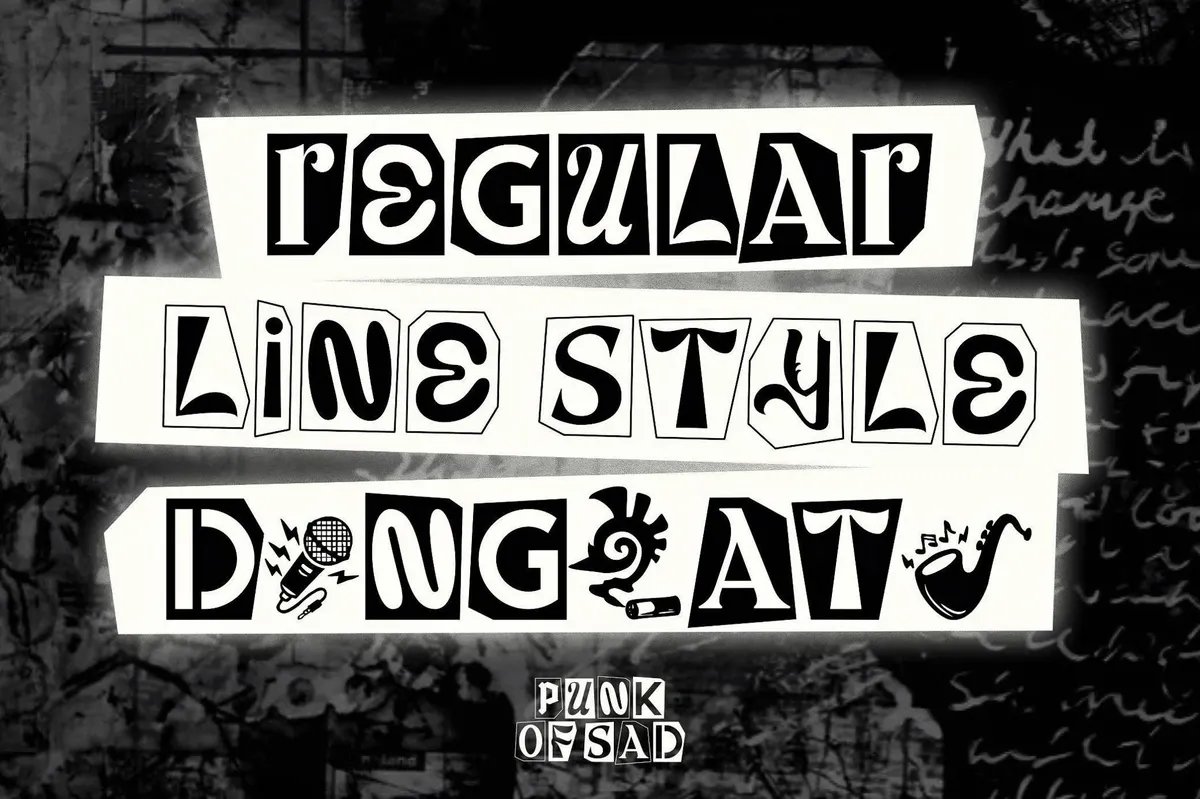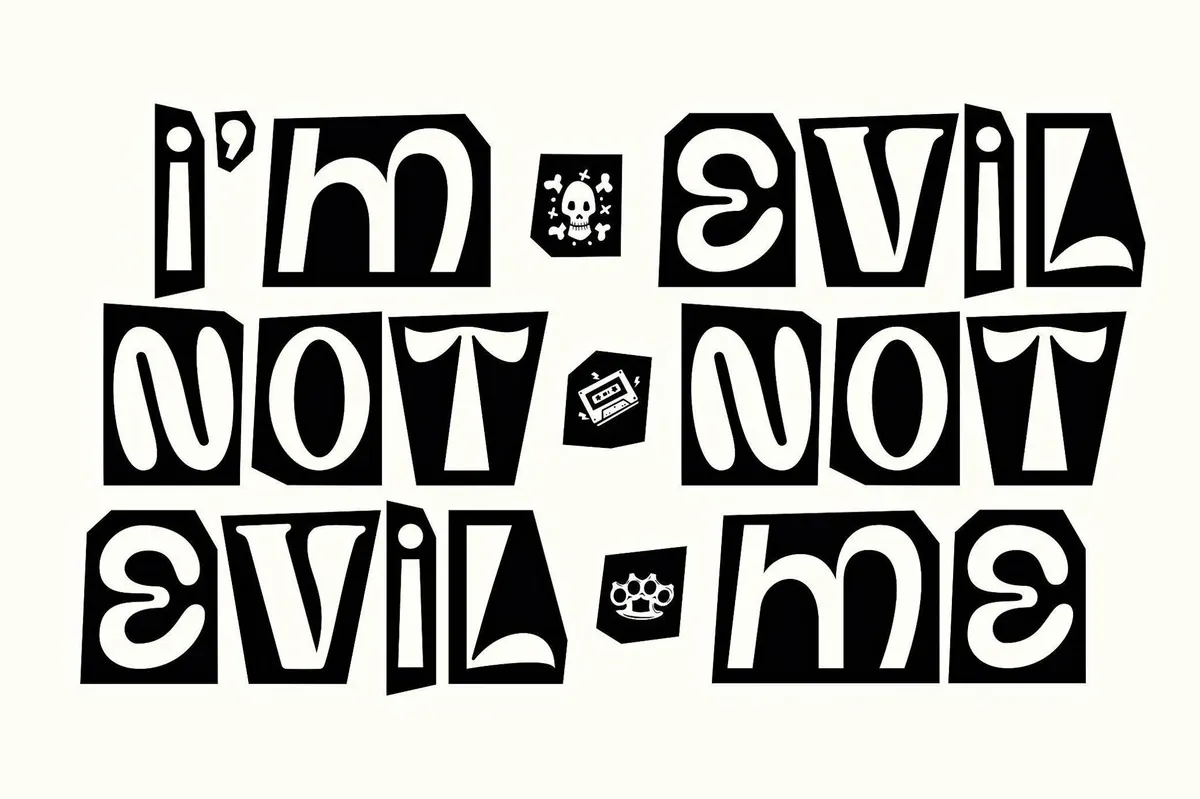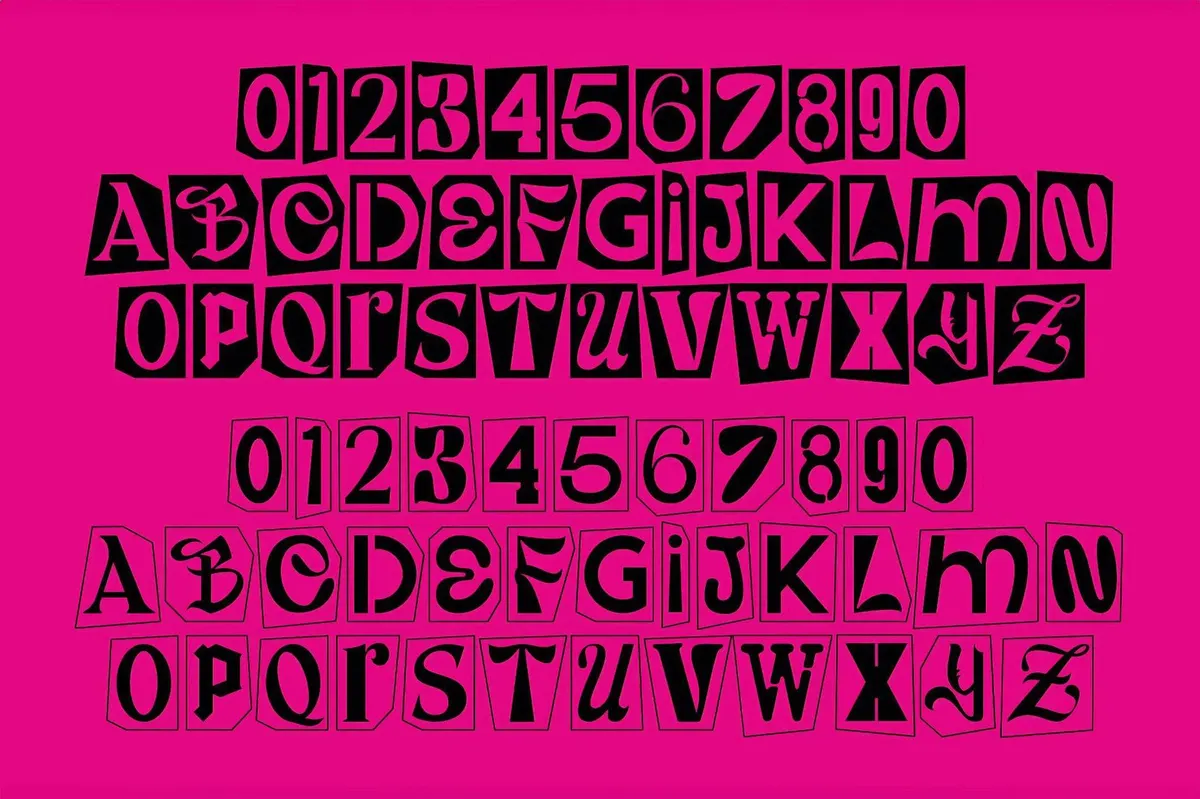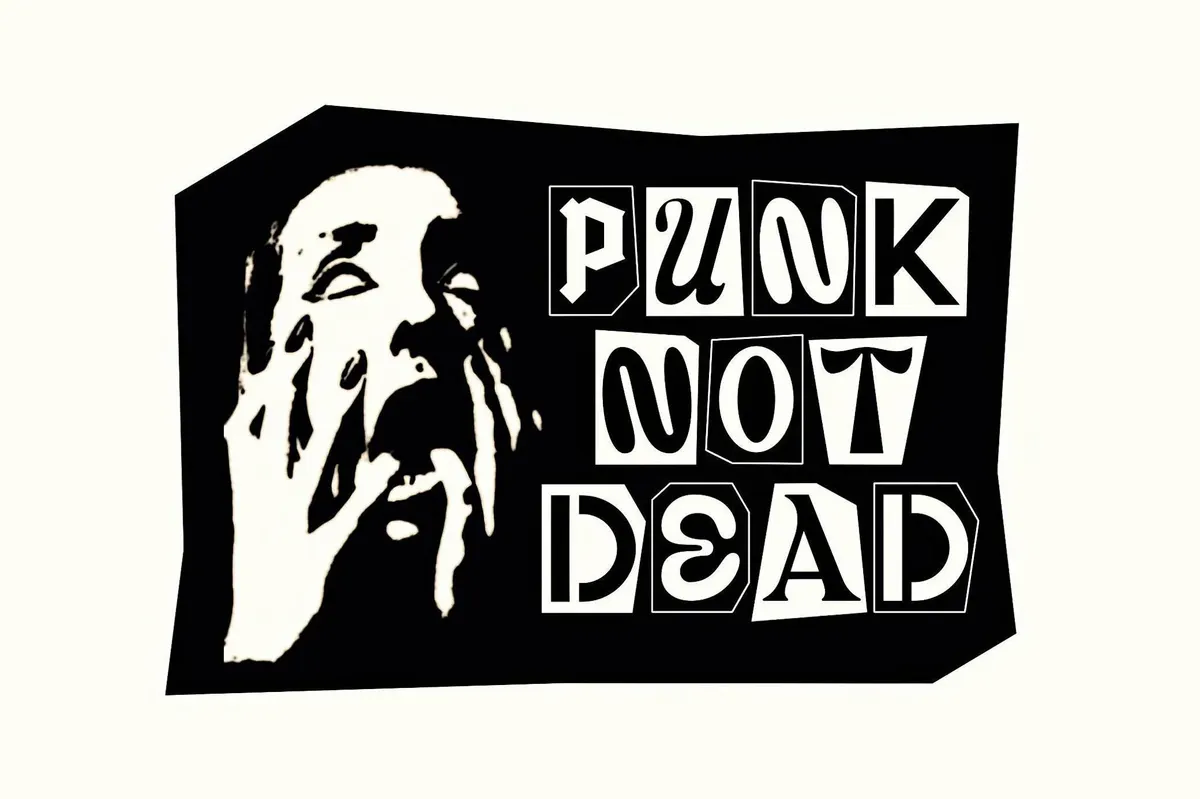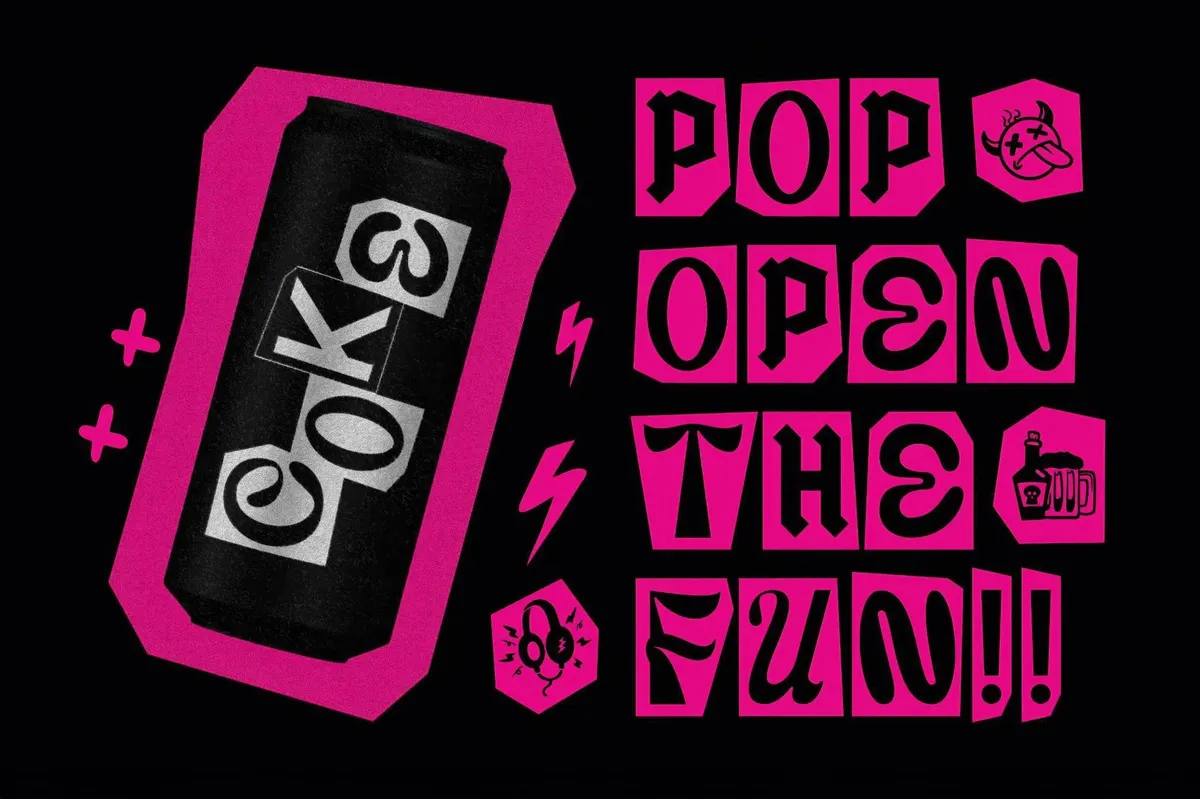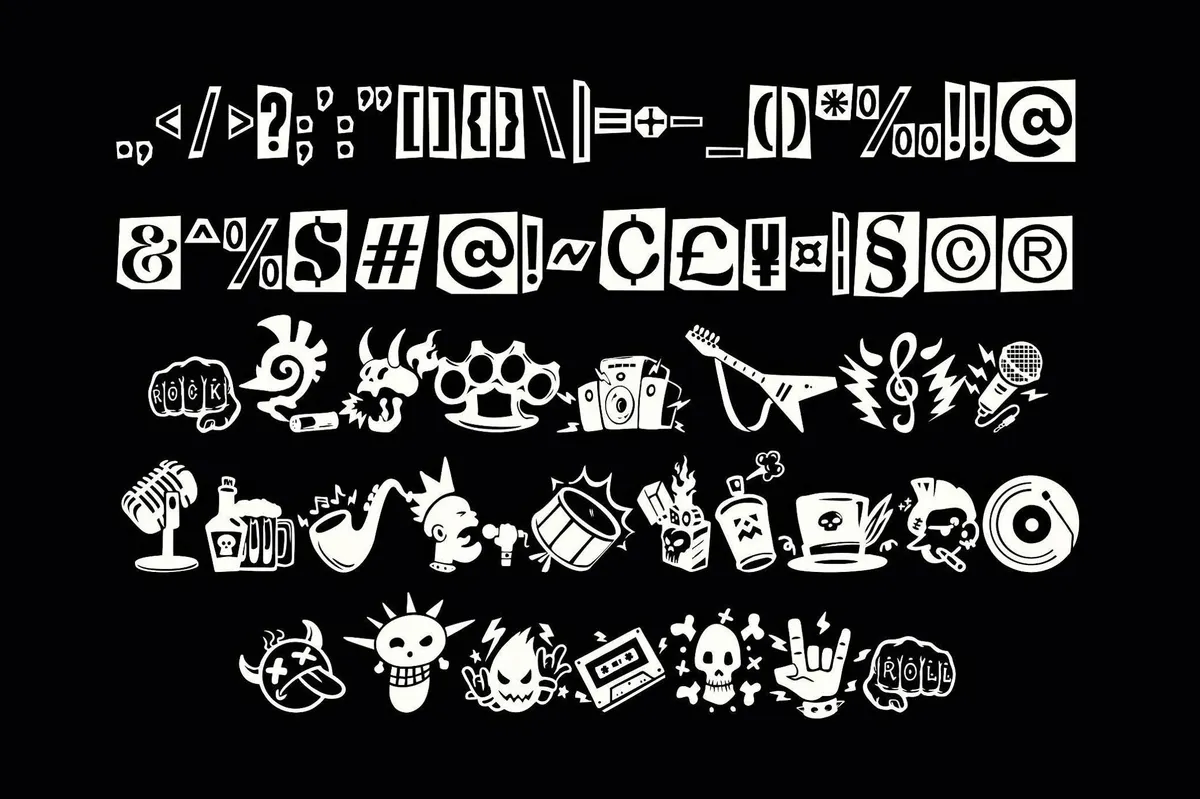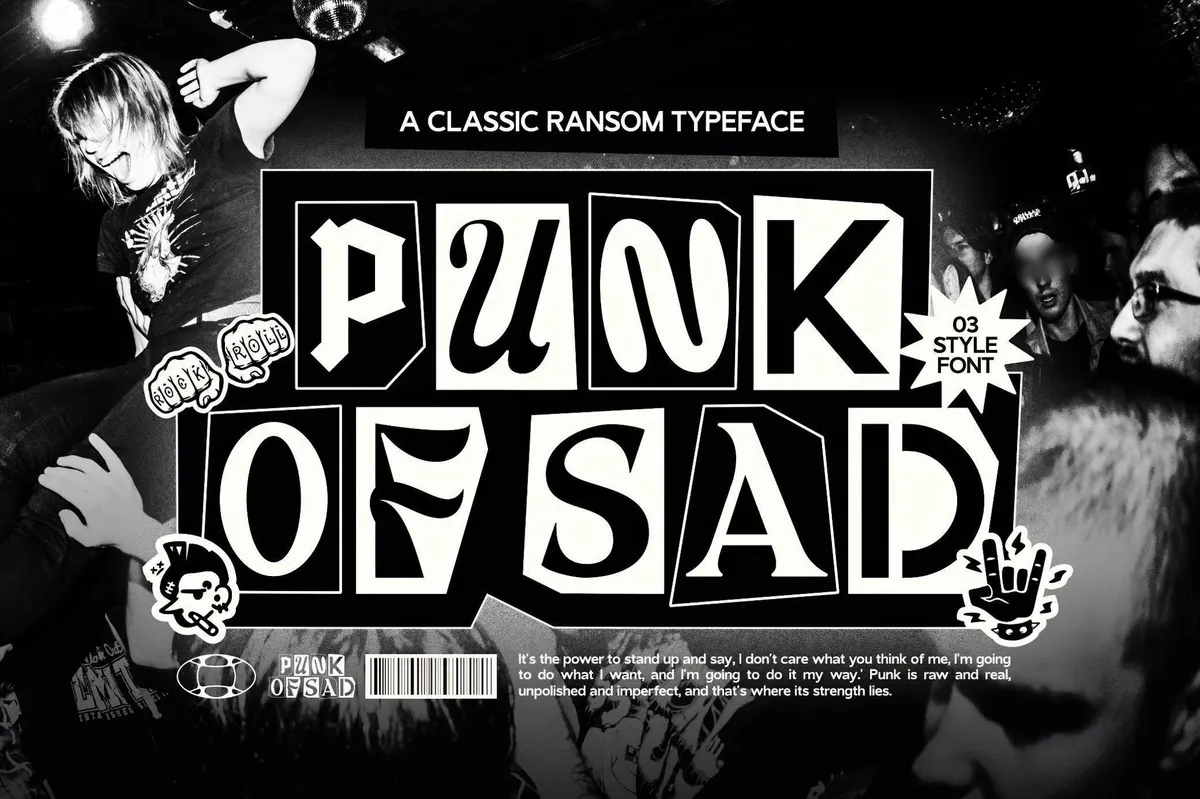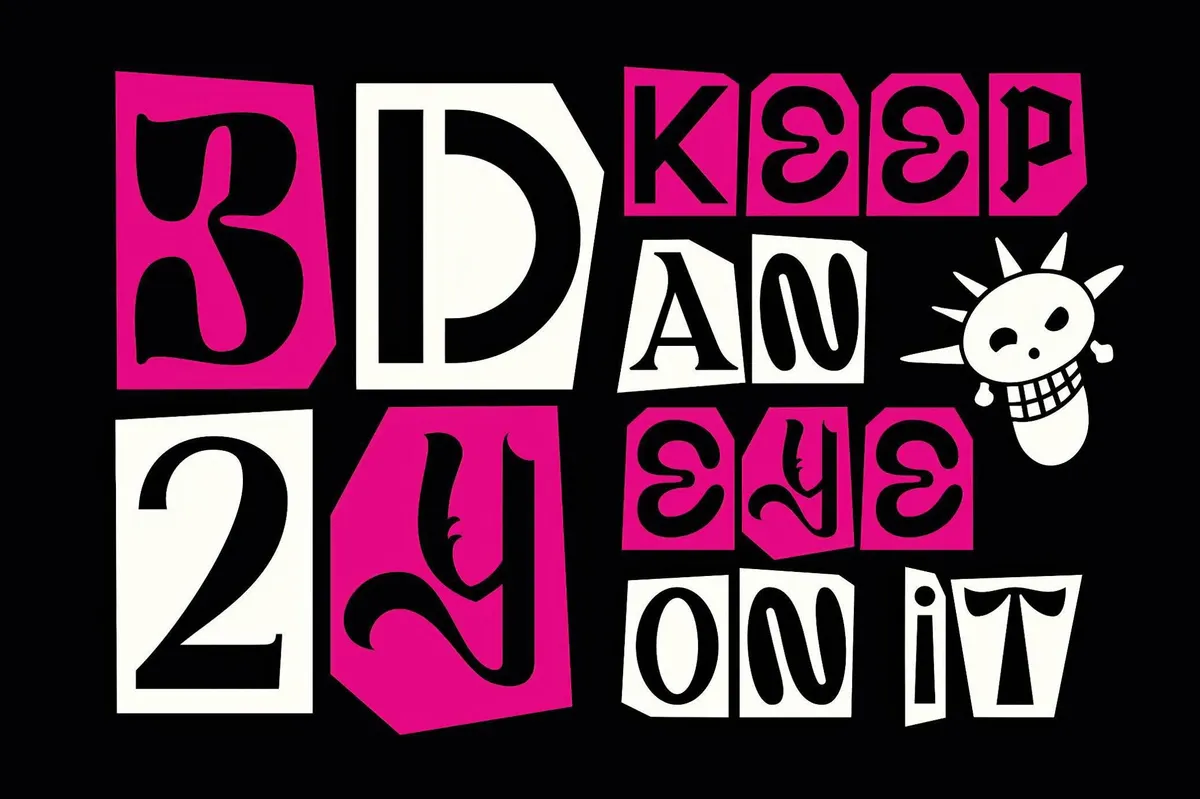
Punk Of Sad — Ransom Font
Punk Of Sad will make sure that you forget all clean lines and corporate polish. This classic ransom-style typeface is a love letter to DIY culture, born from the cut-and-paste chaos of zines, gig posters, and the raw energy of underground scenes. Every letter is unpredictable, pieced together with a rebellious edge.
With three distinct styles — Regular, Line, and Dingbats Punk — this font is built for those who don’t ask for permission. Includes uppercase, lowercase, alternates, ligatures, multilingual support, and enough edge to cut through the noise. It’s an ideal choice for album covers, posters, merch, or any punkish project you may think of.